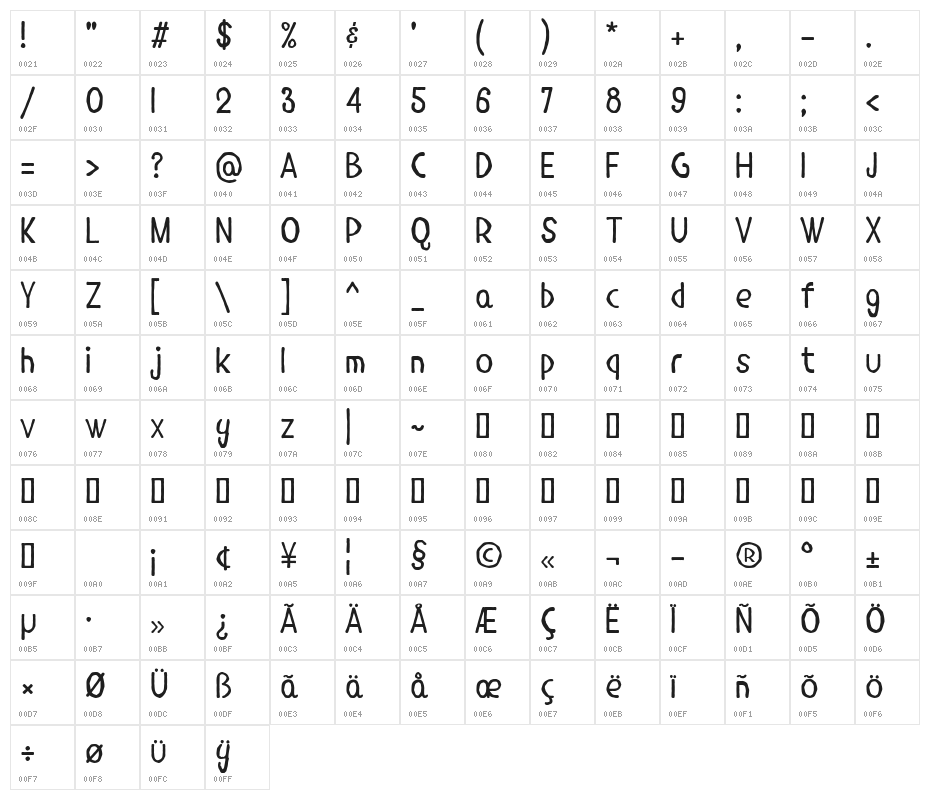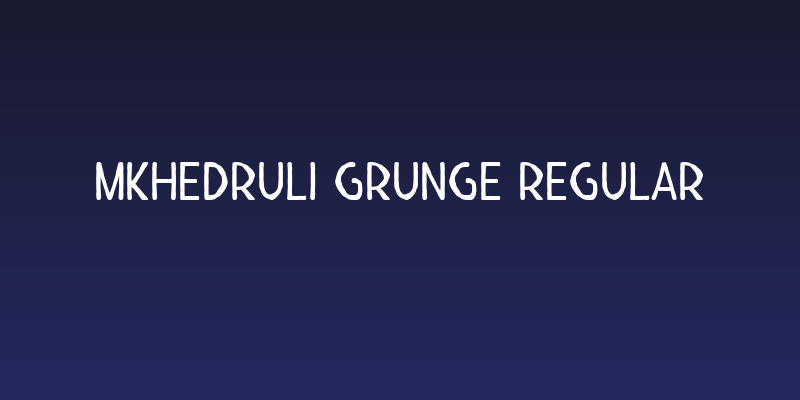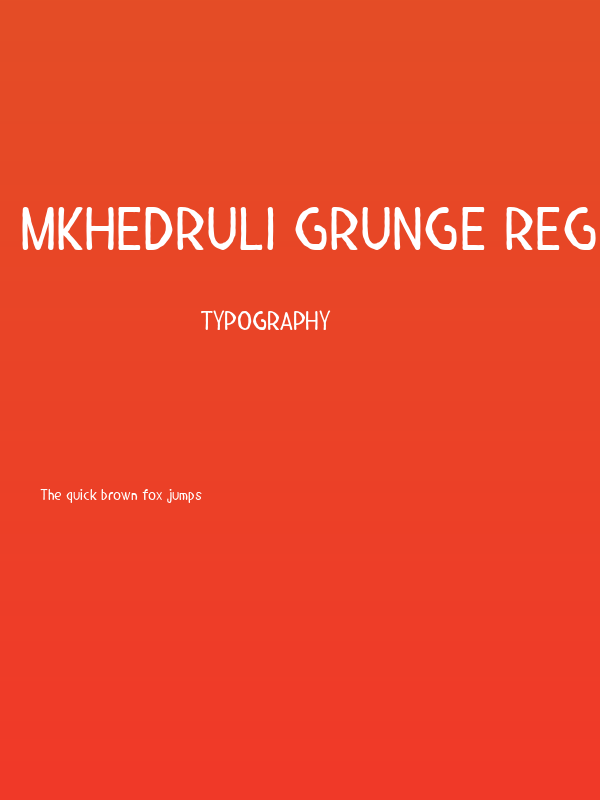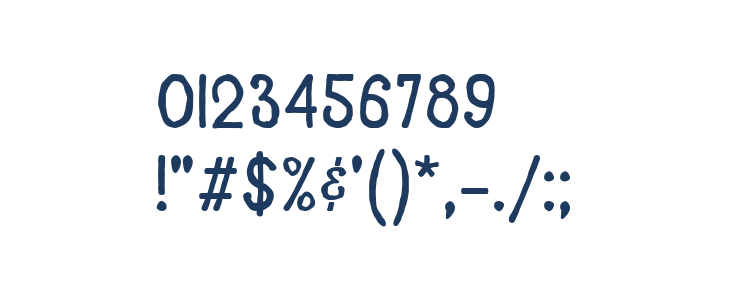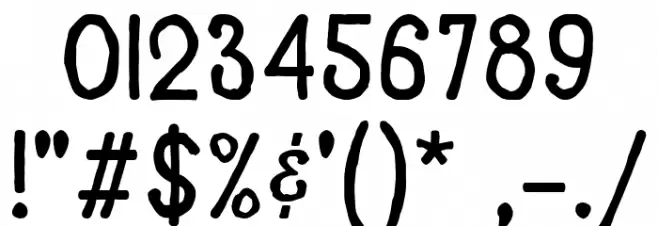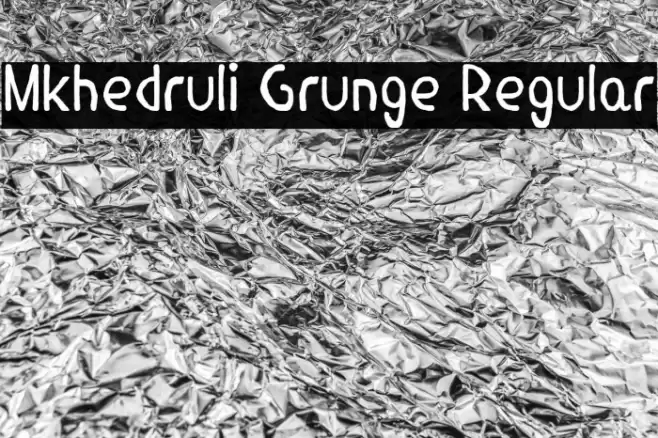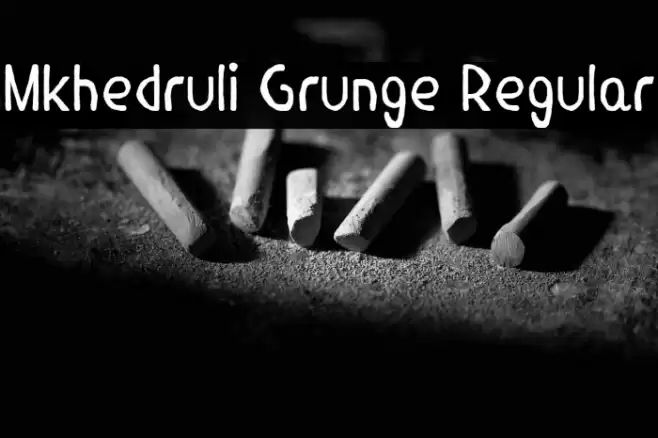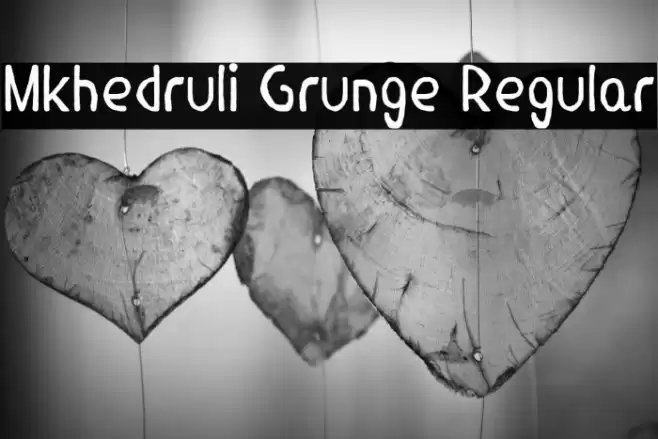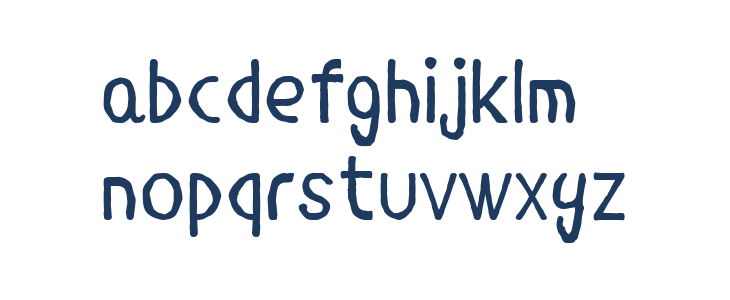
Mkhedruli Grunge Regular Font
This font features a grunge-inspired aesthetic with a hand-drawn appearance. The characters are slightly irregular, giving it a casual and artistic feel. The uppercase and lowercase letters maintain a consistent style, with rounded edges and a slightly distressed texture. The numbers and special characters follow the same design, ensuring a cohesive look across all text elements. This font's unique style makes it stand out, offering a blend of creativity and readability.
| Proposed Projects | Ideal for creative projects such as posters, album covers, and artistic branding materials. |